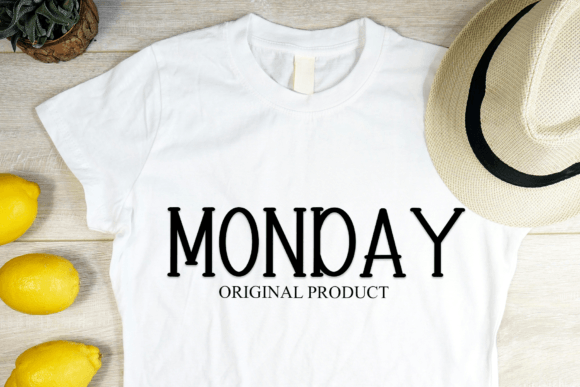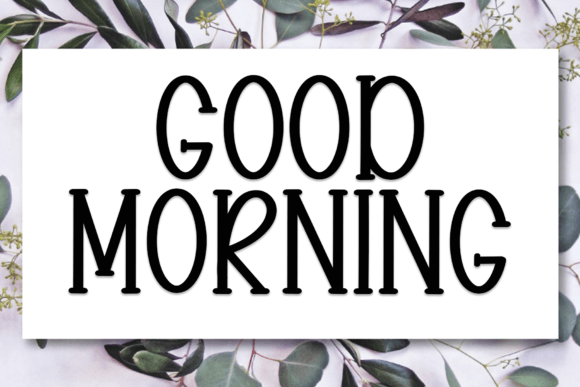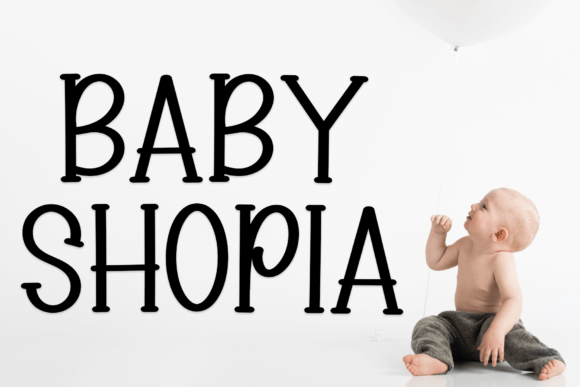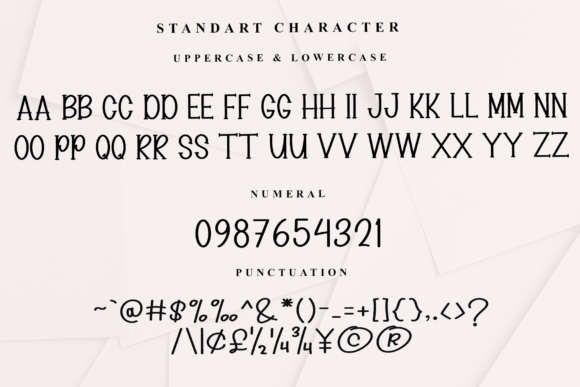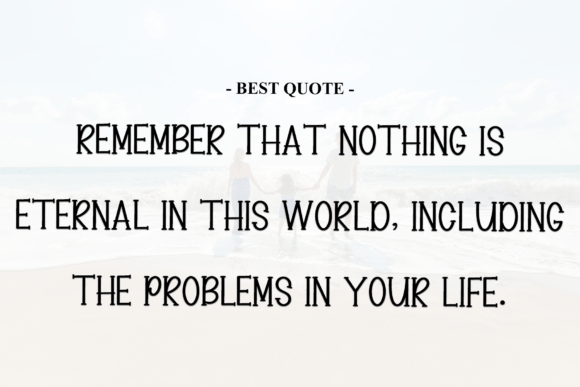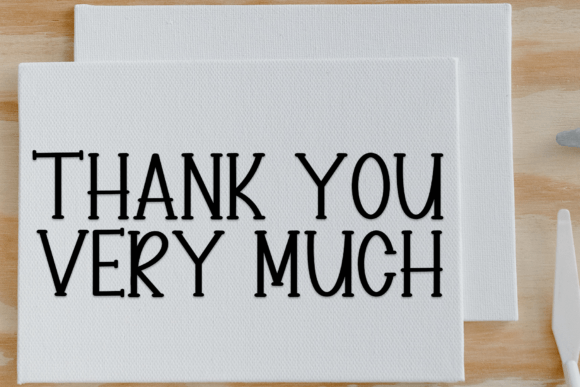
Introducing Christmas Dancing Font: A Timeless Elegance for Your Holiday Designs
Are you looking for the perfect font to add a touch of elegance and sophistication to your Christmas designs? Look no further than the Christmas Dancing Font! This beautiful font is a delicate, elegant, and timeless addition to any design project, and its versatility makes it an excellent choice for a wide range of creative endeavors.
A Delicate and Elegant Design
Christmas Dancing Font is a stunning example of typographic design, with beautifully crafted characters that exude a sense of refinement and poise. Each letter is carefully balanced to create a sense of harmony and visual flow, making it perfect for use in a variety of design applications, from holiday cards and invitations to website headers and social media graphics.
Matching a Wide Pool of Designs
One of the standout features of Christmas Dancing Font is its incredible versatility. Its elegant design makes it an excellent match for a wide range of design styles, from traditional and vintage to modern and minimalist. Whether you’re creating a festive holiday design or a more subtle, elegant look, Christmas Dancing Font is the perfect choice.
PUA Coded for Easy Access to Glyphs and Ligatures
Christmas Dancing Font is PUA (Private Use Area) coded, which means that you can easily access all the amazing glyphs and ligatures included in the font. This makes it simple to add a touch of personality and whimsy to your designs, and to create truly unique and eye-catching typography.
Adding a Touch of Magic to Your Designs
So why settle for a generic, run-of-the-mill font when you can add a touch of magic to your designs with Christmas Dancing Font? This beautiful font is sure to make your designs come alive, and its timeless elegance ensures that it will remain a popular choice for years to come.
Christmas Dancing Font is a must-have for designers and crafters looking to add a touch of elegance and sophistication to their holiday designs. Whether you’re creating custom holiday cards, decorations, or gifts, this font is the perfect choice. Its delicate and elegant design makes it perfect for a wide range of creative projects, from:
- Website headers and social media graphics
- Custom decorations and gift tags
- Stationery and gift wrap
In conclusion, Christmas Dancing Font is a beautiful, elegant, and timeless font that is perfect for adding a touch of sophistication and refinement to your holiday designs. Its delicate and elegant design makes it a versatile choice for a wide range of creative projects, and its PUA coding makes it easy to access all the amazing glyphs and ligatures included in the font. So why wait? Download Christmas Dancing Font today and start creating stunning holiday designs that will leave a lasting impression!